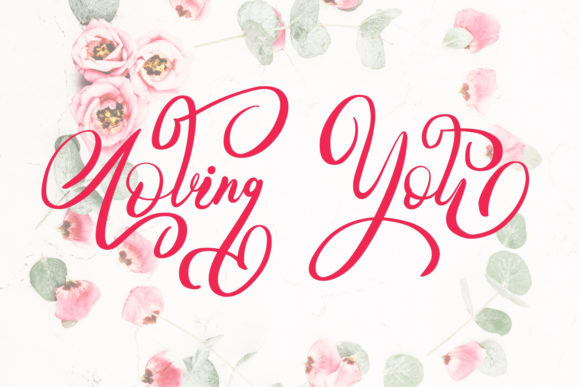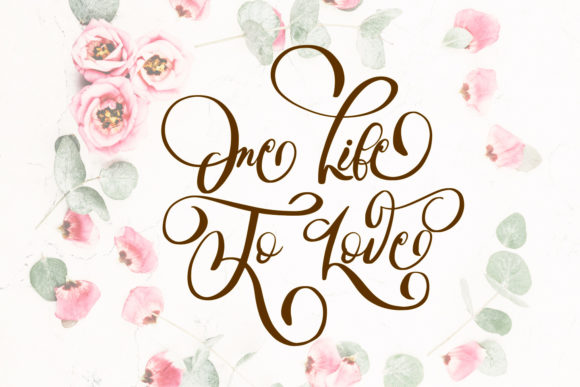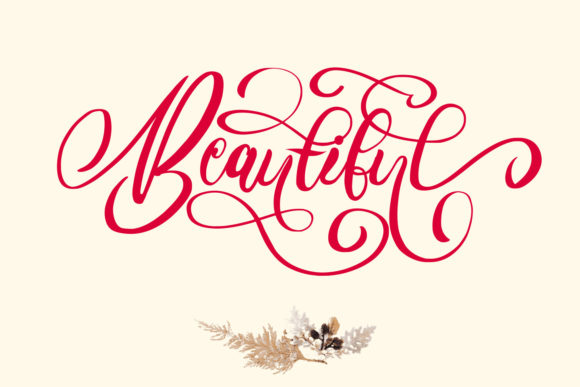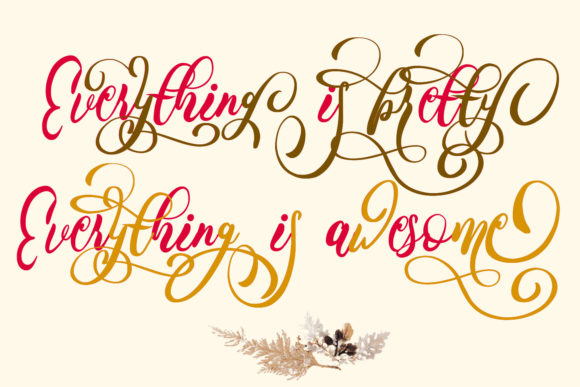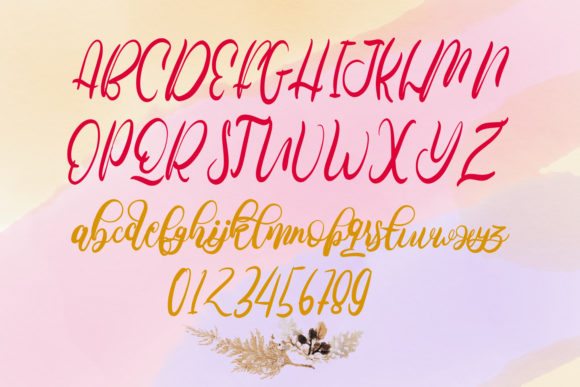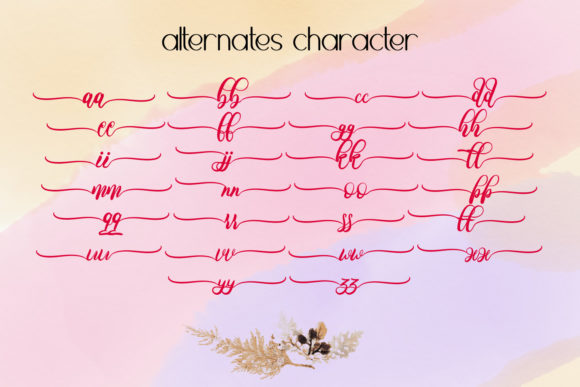
Introduction to Febrina Font
Febrina is beautiful calligraphy font that has a lot of pretty alternate characters.
just play with its combinations and you will get a beautiful and charming result .